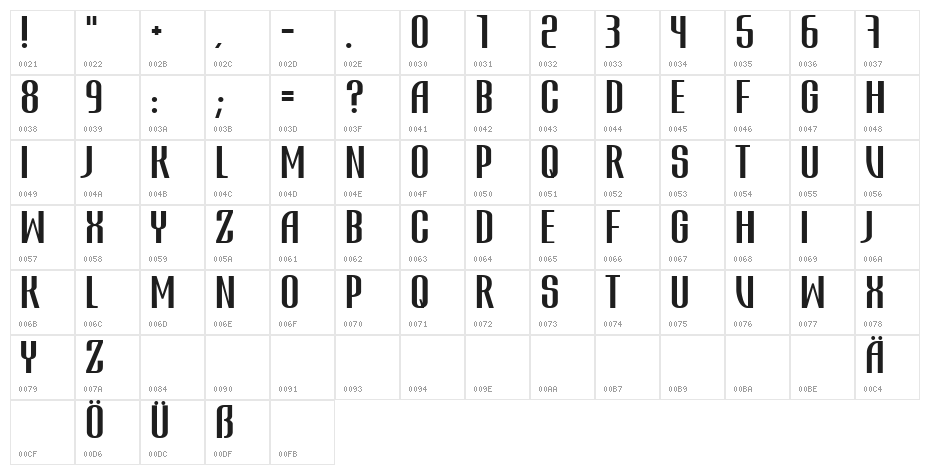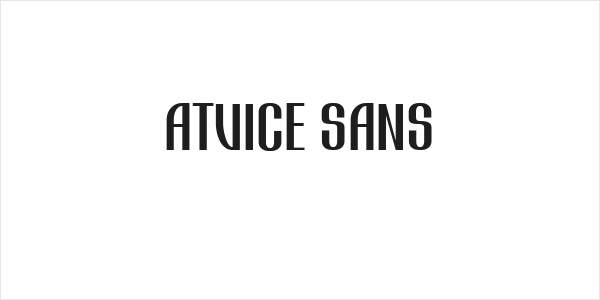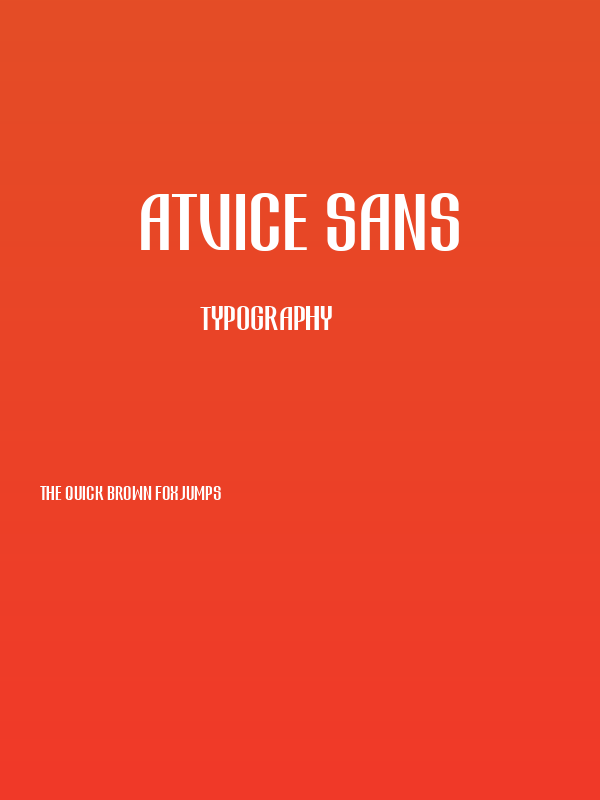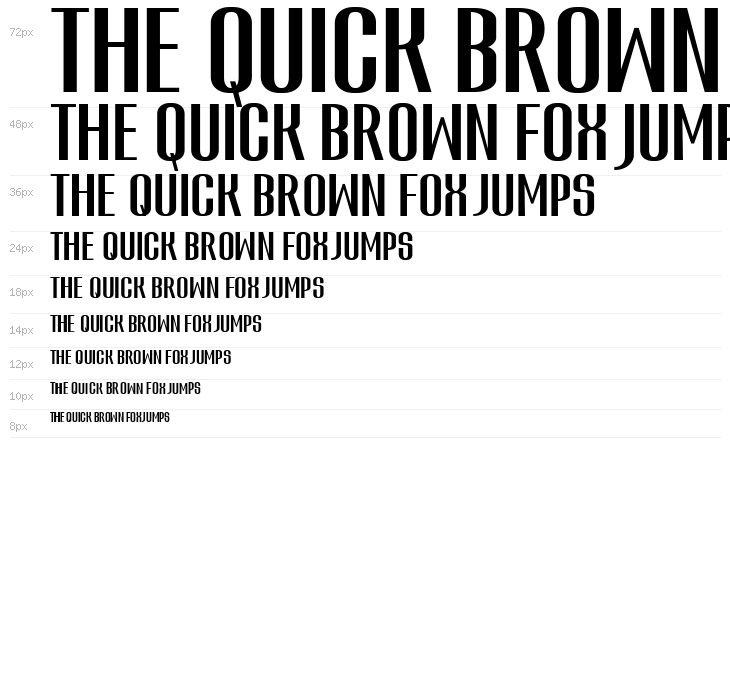
Atvice Sans Font
Atvice Sans Description
This font features a bold and modern design with a strong geometric structure. The characters are tall and narrow, giving it a condensed appearance. The uppercase letters are particularly striking, with sharp angles and clean lines that create a sense of precision and clarity. The lowercase letters maintain the same geometric style, ensuring consistency throughout the typeface. The numerals are distinct and easy to read, with a similar boldness that matches the alphabetic characters. Special characters are included, maintaining the overall aesthetic. This font is ideal for making a strong visual impact.
| Proposed Projects | Ideal for branding, headlines, posters, and any project requiring a strong visual impact. |